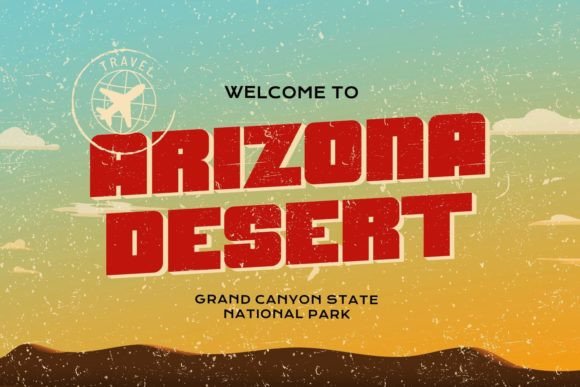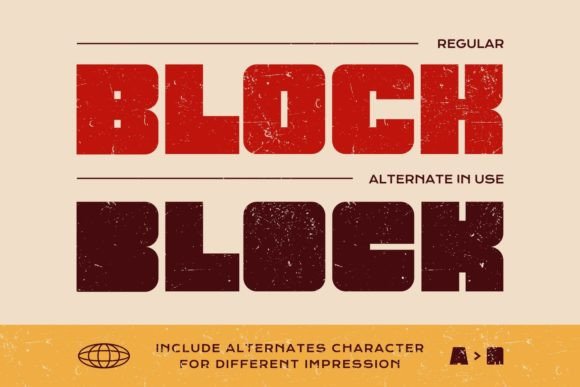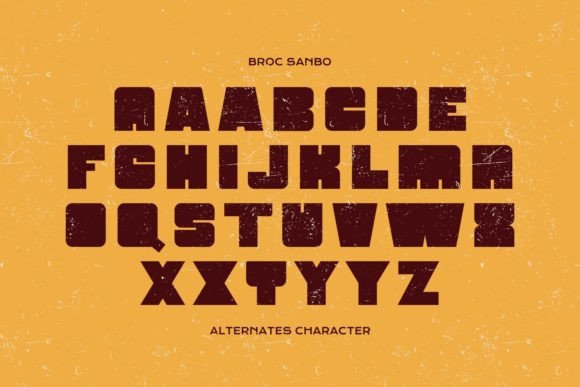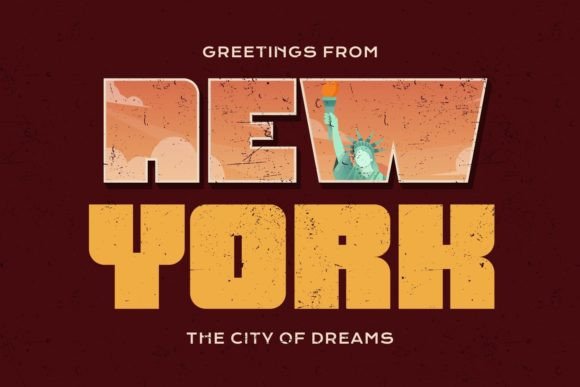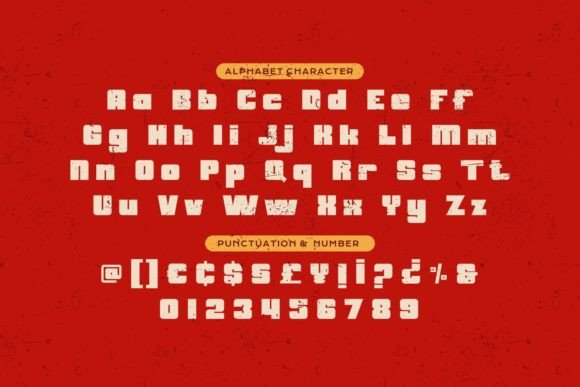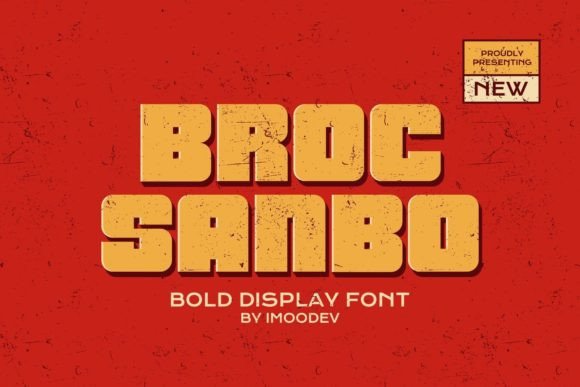
Broc Sanbo Font: The Bold and Cool Display Font You Need for Your Projects
Are you tired of using the same old fonts for your design projects? Look no further than Broc Sanbo, a bold and cool display font that’s sure to take your work to the next level. With its unique and eye-catching style, Broc Sanbo is the perfect addition to any project, from branding and advertising to packaging and more.
What is Broc Sanbo Font?
Broc Sanbo is a display font designed to make a statement. Its bold and chunky letters are perfect for headlines, titles, and other large-format text, while its clean and modern aesthetic ensures that it will fit in with even the most contemporary designs. Whether you’re working on a logo, a brochure, or a website, Broc Sanbo is the perfect choice for adding a touch of personality and flair.
Key Features of Broc Sanbo Font
- Bold and Chunky Letters: Broc Sanbo’s letters are designed to be big and bold, making them perfect for headlines and titles.
- Clean and Modern Aesthetic: Despite its bold style, Broc Sanbo has a clean and modern aesthetic that ensures it will fit in with even the most contemporary designs.
- Highly Versatile: Broc Sanbo can be used for a wide range of projects, from branding and advertising to packaging and more.
- Easily Readable: Despite its bold style, Broc Sanbo is still highly readable, even at smaller sizes.
Why Use Broc Sanbo Font?
So why should you choose Broc Sanbo for your next project? Here are just a few reasons:
- Adds Personality to Your Designs: Broc Sanbo’s unique and eye-catching style ensures that your designs will stand out from the crowd.
- Perfect for Headlines and Titles: Broc Sanbo’s bold and chunky letters make it perfect for headlines and titles.
- Fits with Modern Designs: Broc Sanbo’s clean and modern aesthetic ensures that it will fit in with even the most contemporary designs.
Tips for Using Broc Sanbo Font
Here are a few tips for getting the most out of Broc Sanbo:
- Use it for Headlines and Titles: Broc Sanbo is perfect for headlines and titles, so use it to add a touch of personality to your designs.
- Experiment with Colors: Broc Sanbo looks great in a wide range of colors, so don’t be afraid to experiment and find the perfect hue for your design.
- Pair it with Other Fonts: Broc Sanbo can be paired with other fonts to create a unique and eye-catching design.
Broc Sanbo is a bold and cool display font that’s perfect for adding a touch of personality to your designs. With its unique and eye-catching style, highly versatile design, and ease of use, Broc Sanbo is the perfect choice for designers and crafters looking to take their work to the next level. So why wait? Download Broc Sanbo today and see the difference it can make in your designs!